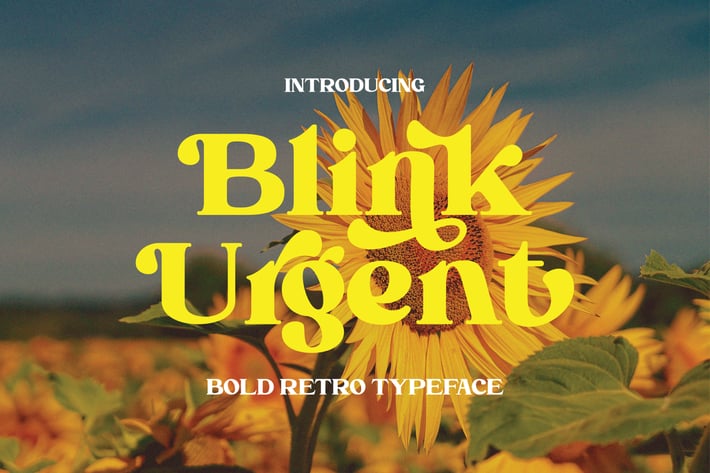
Blink Urgent - Retro Serif Font
Blink Urgent - Modern Bold Serif Font is a stylish font It has both modern and retro look. Comes with alternatives and ligatures, helps to create stunning logos, quotes, posts, blog posts. branding projects, magazine imagery, wedding invitations, and much more.
Unique Letterforms